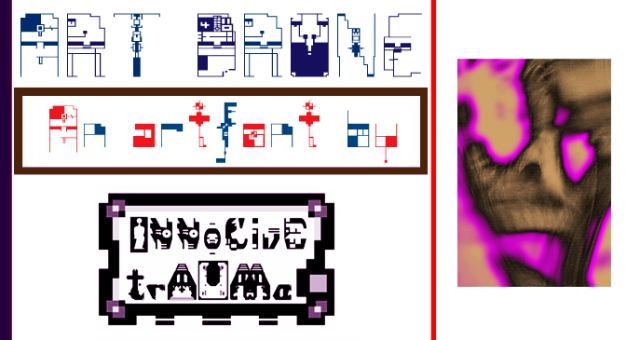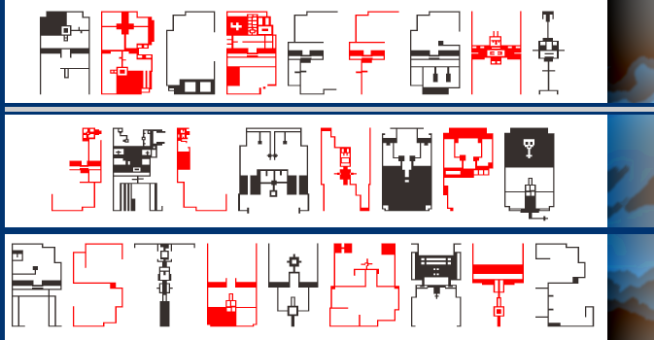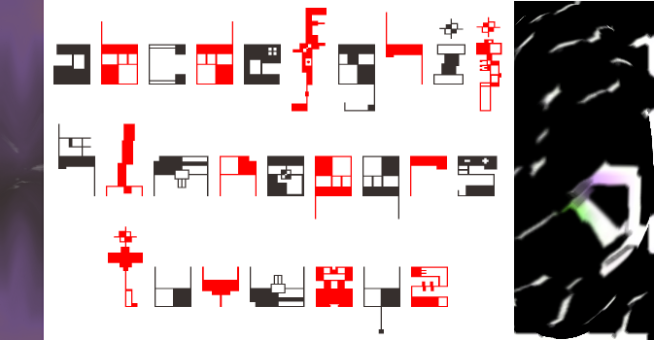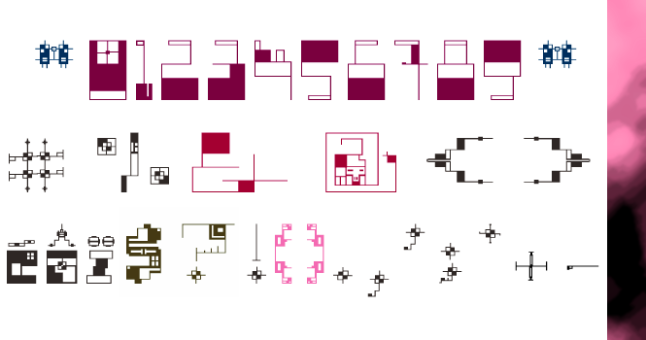
trAUMa 20 / Art Drone
"Art Drone", like all the "trAUMa" series, works at the frontier between Art & Type Design, Figuration & Abstraction, each font is a comprehensive world in which every glyph is a "living" entity. But put together they can produce your messages in the most accurate way.